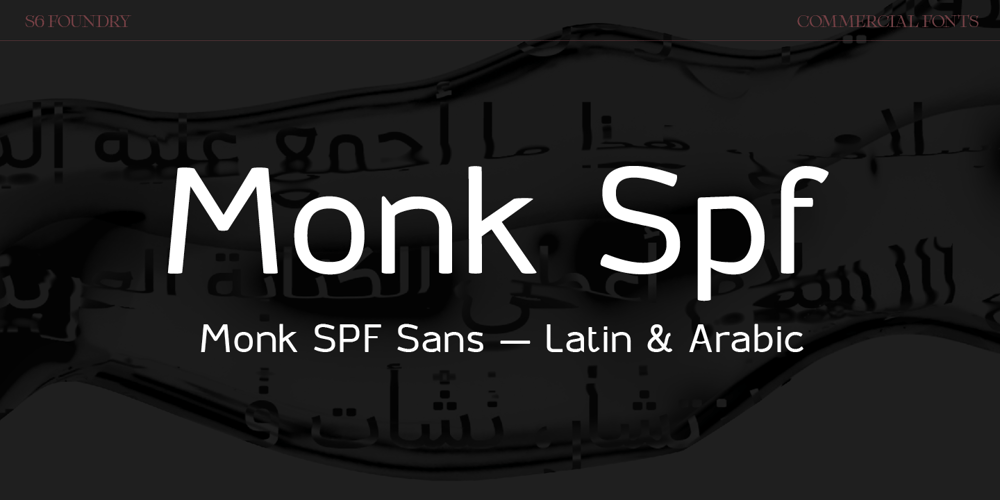
Monk SPF
Monk SPF font
Monk SPF Font Family was designed by Paul Henry Robb and published by S6 Foundry. Monk SPF contains 10 styles and family package options. Monk is a multi-language geometric harmoniously balanced font in Arabic and Latin. The font family has its origins in Benedictine and Franciscan writing. Both Arabic and Latin work seamlessly together having shared counters, stem thickness, and curved forms. Monk is a type family that seeks a balance between the openness and legibility of humanist sans serifs. Letterforms have a distinct direction of the ductus, a wide overall stance, large open counters that help in its legibility.The typeface is versatile and can be successfully used in magazines, posters, branding, websites, headlines, large-format prints, brand identities, social media, advertising, editorial design, posters.The family contains over 40 alternative glyphs and over 50 ligatures in each style and comes in 10 styles with their corespondent italics. The family Latin supports Western, Central, South Eastern, South American, Oceanian, Pan African, Vietnamese, Sámi & Arabic